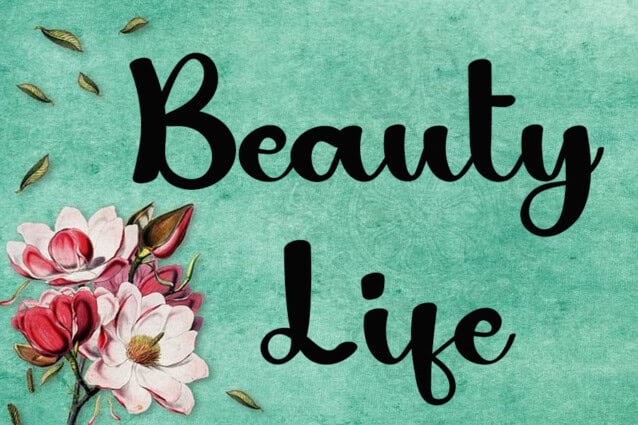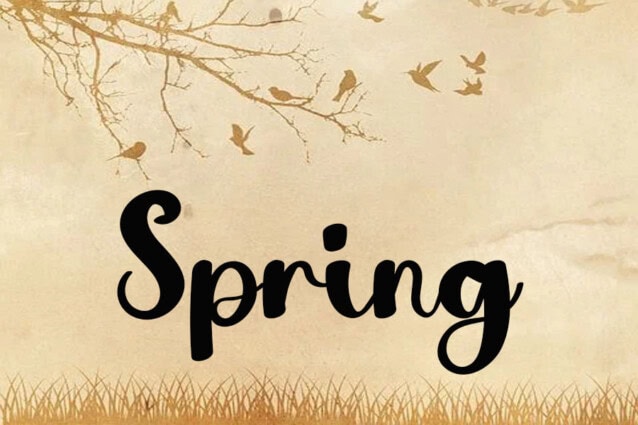
Daily Handmade Script Font
Daily Handmade Script Font is a well-balanced handwritten font with a contemporary atmosphere and impeccable form, inspired by a timeless classic calligraphy. It will look outstanding in a wide range of contexts.